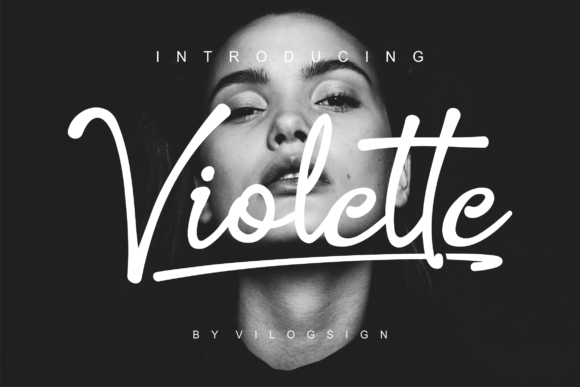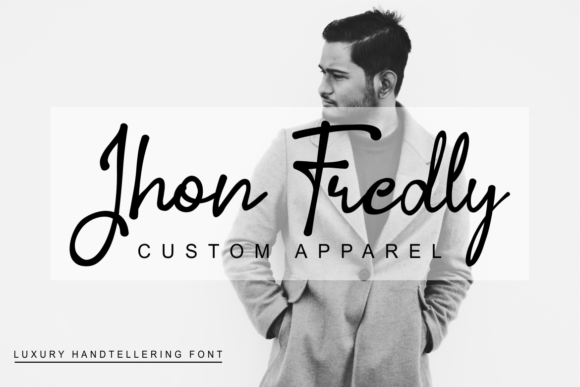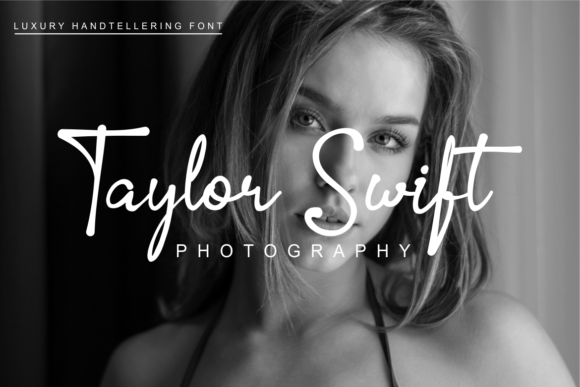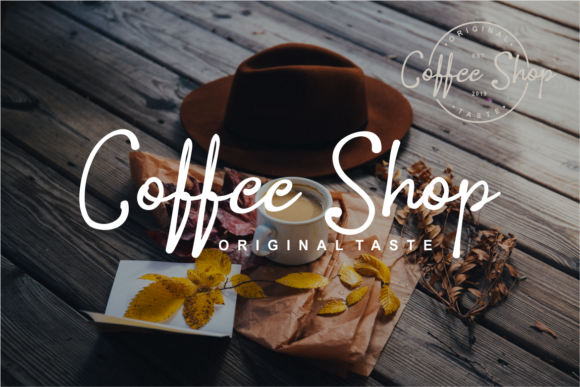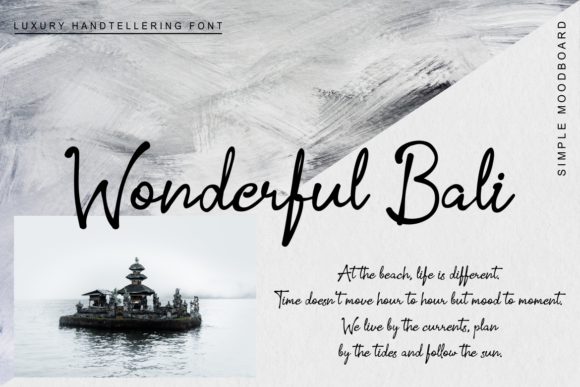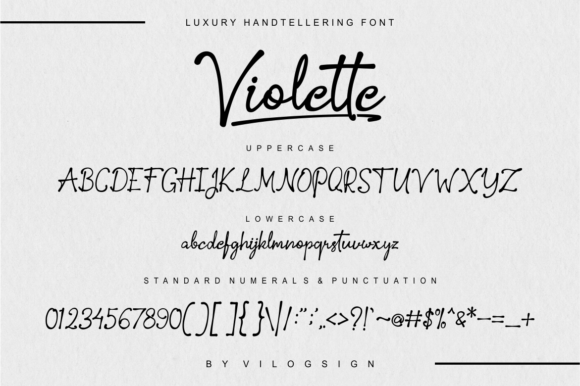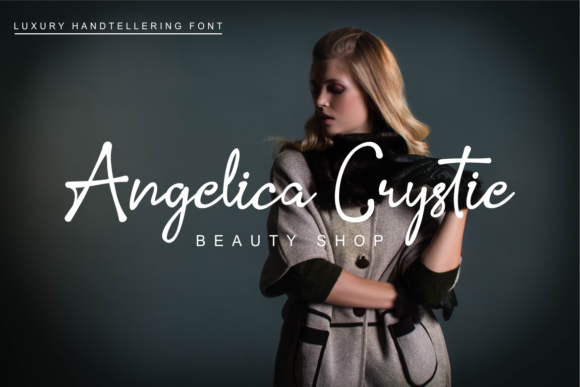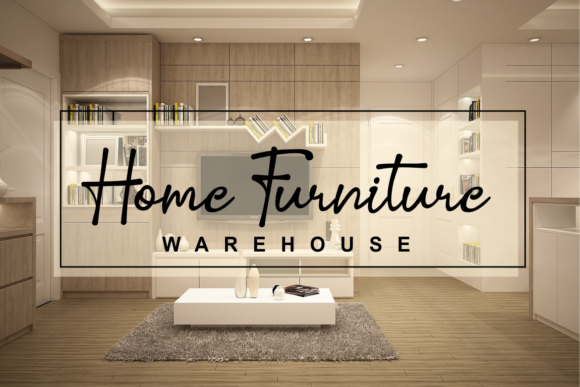
Violette Font
About Violette Font
The Violette is a luxurious hand lettered font. This realistic pencil script is perfect for adding a natural, retro, yet elegant design.